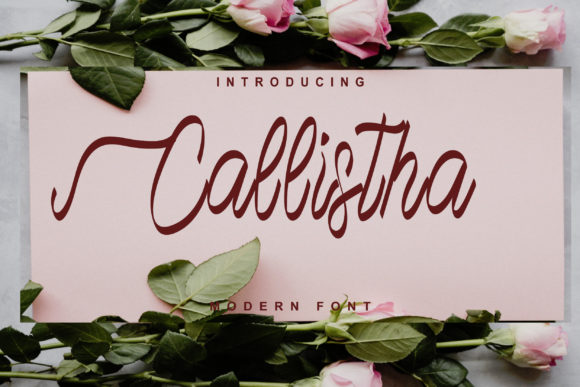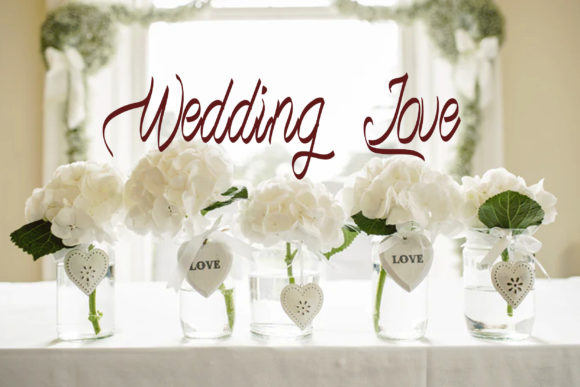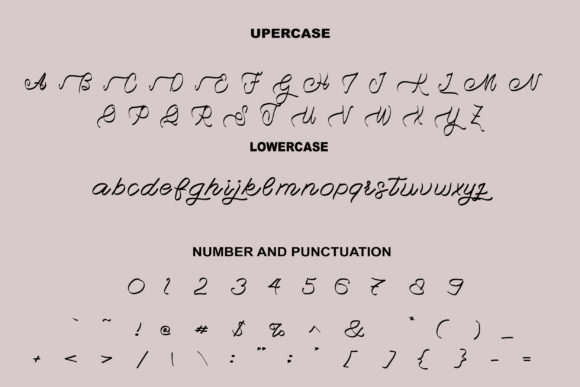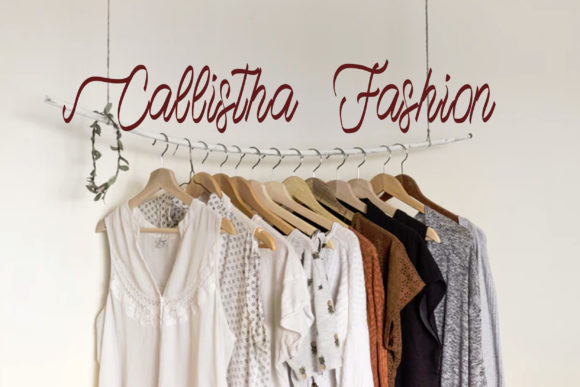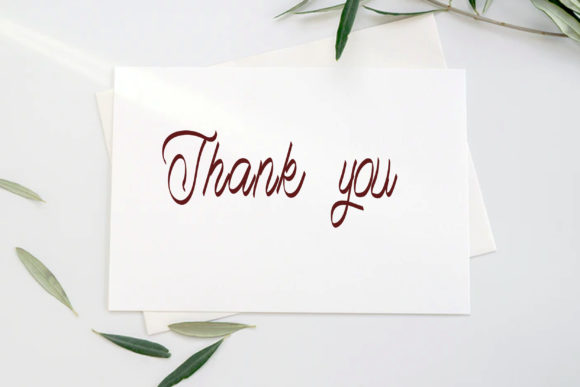
About Callistha Font
Callistha is a sophisticated and elegant script font that exudes charm and style. With its chic and refined letterforms, this font adds a touch of sophistication to any project, making it the perfect choice for various design applications.
The stylish alternates and ligatures of Callistha give you the flexibility to customize and create unique and beautiful typography. Whether you’re designing wedding invitations, branding materials, elegant packaging, or any other project that requires a touch of elegance, Callistha is a font that will elevate your designs.
The graceful curves and flowing lines of Callistha create a sense of beauty and grace. Its refined script style brings a timeless and sophisticated feel, capturing attention and making a lasting impression. From decorative flourishes to ornamental swashes, this font offers a range of design elements that can be used to enhance the visual appeal of your creations.
Callistha is versatile and can be used across various design projects. It is well-suited for wedding stationery, logo design, fashion branding, editorial layouts, and more. Its elegant look adds a touch of luxury and refinement to your designs, making them stand out and exude a sense of professionalism.
Embrace the elegance and charm of Callistha and let it be the perfect match for your projects. Whether you’re aiming for a classic and timeless aesthetic or a modern and sophisticated vibe, Callistha’s stylish alternates and ligatures will help you achieve the desired look and feel.